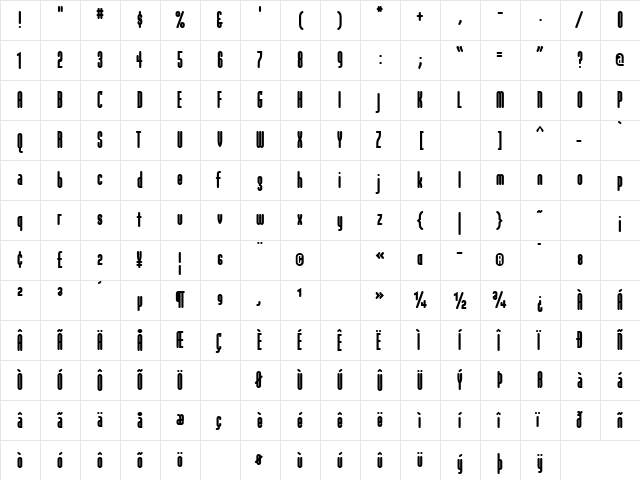
ModulaRoundBlack Regular
Design Context for ModulaRoundBlack Typeface
ModulaRoundBlack uses gentle rounded endings to create a warm, inviting typographic personality — less corporate than geometric sans, more refined than playful display fonts.
Well-suited to UI design, mobile interfaces, and any brand that wants approachability without sacrificing clarity.
Font Pairing: Pairs well with a rounded or humanist sans for body copy, maintaining the friendly tone without relying on ModulaRoundBlack to carry extended reading.
Pro Tip: Use ModulaRoundBlack for UI elements, app interfaces, and anywhere a friendly, approachable tone needs to be maintained without sacrificing clarity.